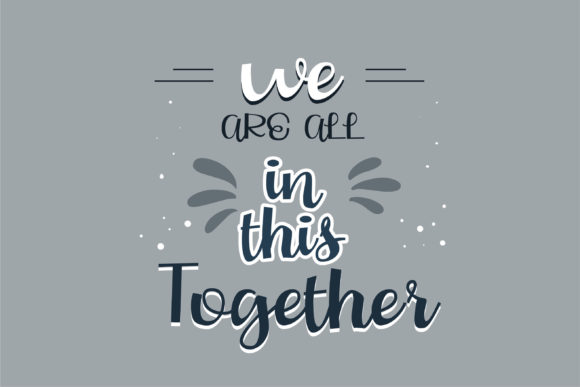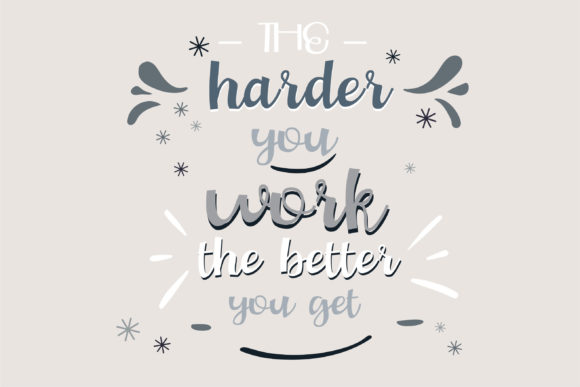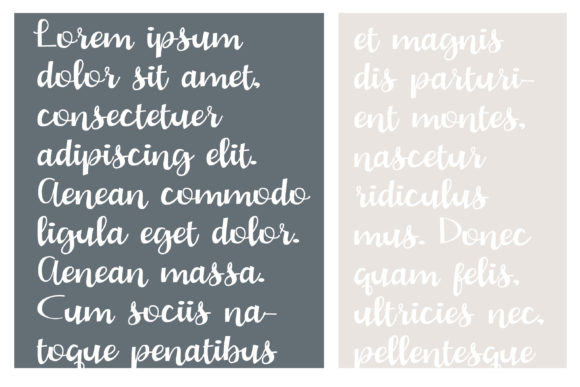
Introduction to Rapscillion Font
As designers, we’ve all been there – staring at a blank canvas, searching for that perfect font to bring our creative vision to life. For me, it’s the moment when the words start flowing, and the design begins to take shape. It’s a feeling that’s hard to replicate, but when it happens, it’s pure magic. Recently, I discovered the Rapscillion Font, and I’m excited to share it with you.
This enchanting handwritten font is a design resource that’s sure to captivate your audience. With its high-quality, cursive script, the Rapscillion Font is perfect for adding a touch of romance to your next project. Whether you’re creating a greeting card, a wedding invitation, or a headline, this font is sure to elevate your design and leave a lasting impression.
Key Features of Rapscillion Font
- Rapscillion Font is a free design resource suitable for various creative projects, offering a unique and eye-catching style.
- It comes in a high-quality, transparent background format, allowing for seamless integration into your design.
- Rapscillion Font is available in 6 styles, each with its unique characteristics, making it perfect for adding depth and variety to your designs.
- The font has a resolution of 300 DPI, ensuring crisp and clear text, ideal for printing and digital applications.
- Rapscillion Font is designed to be highly versatile, suitable for a wide range of creative projects, from branding and logos to graphics and typography.
- With its unique design and high-quality format, Rapscillion Font is an excellent addition to any designer’s toolkit, available for free download.
Honest Review: Rapscillion Font
As a designer, I’m always on the lookout for unique and high-quality design resources to elevate my creative projects. The Rapscillion Font is one such find that caught my attention. With its quirky, handwritten feel, it’s perfect for adding a touch of whimsy to your designs.
- Unique, handwritten style that adds character to designs
- Works well with transparent backgrounds, allowing for seamless integration with other design elements
- May not be suitable for formal or corporate designs, as its playful nature can be overwhelming
- Lacks a comprehensive character set, which may limit its usability for certain projects
Overall, the Rapscillion Font is a great addition to any designer’s toolkit. Its free download and high-quality design make it an excellent resource for creative projects. While it may not be suitable for all design styles, its unique character and versatility make it a worthwhile download for designers looking to add some personality to their work.
Tips for Getting the Most Out of Rapscillion Font
For optimal results, use Rapscillion Font in conjunction with a transparent background to create a visually striking design. Experiment with different font sizes and styles to achieve the desired look. You can also pair Rapscillion Font with other fonts to create a unique and eye-catching design.
Rapscillion Font is ideal for a variety of creative projects, including logos, branding, and marketing materials. Its unique aesthetic and high quality make it a popular choice among designers and artists. You can also use Rapscillion Font for personal projects, such as blog posts and social media graphics.